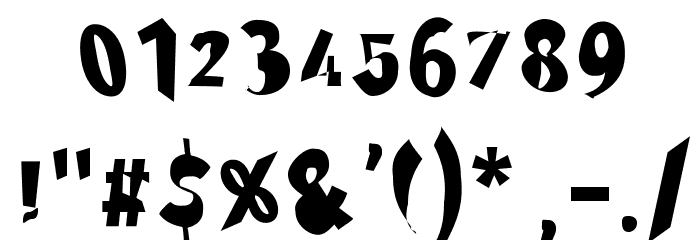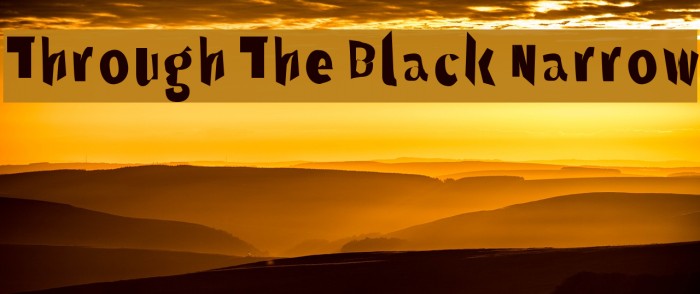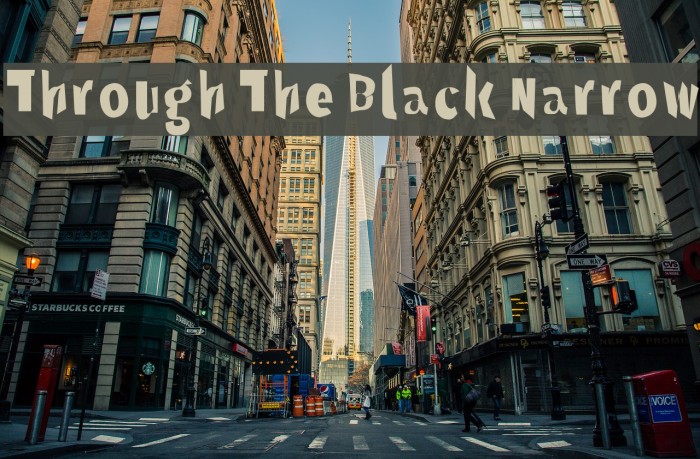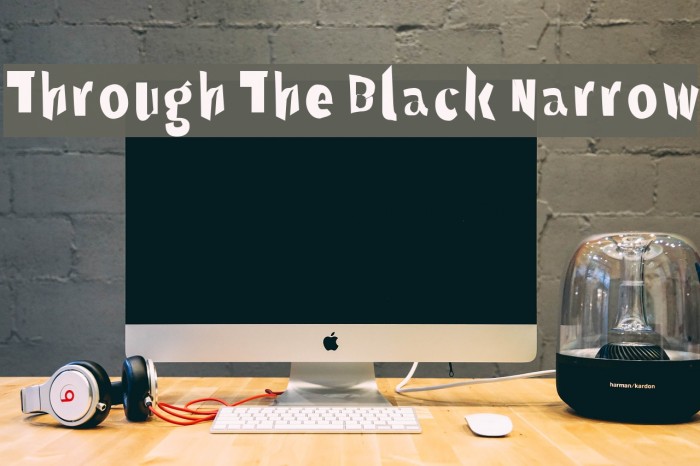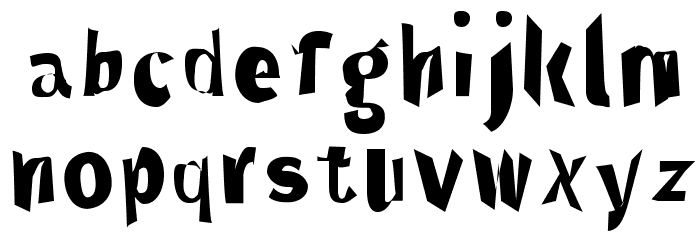
Through The Black Narrow Font
This font features a unique and edgy design with sharp, angular cuts and irregular shapes, giving it a dynamic and rebellious appearance. The letters are bold and slightly distorted, creating a sense of movement and energy. The uppercase and lowercase characters maintain a consistent style, while the numbers and special characters complement the overall aesthetic. This font is ideal for projects that require a bold statement or a creative, unconventional look.
A bold, edgy font with sharp, angular cuts and dynamic shapes.
• Proposed Projects: Album covers, posters, branding for edgy or alternative brands, and creative digital artwork.
• Overall Style: Modern, Edgy
• Use Case: Headlines, Logos, Posters